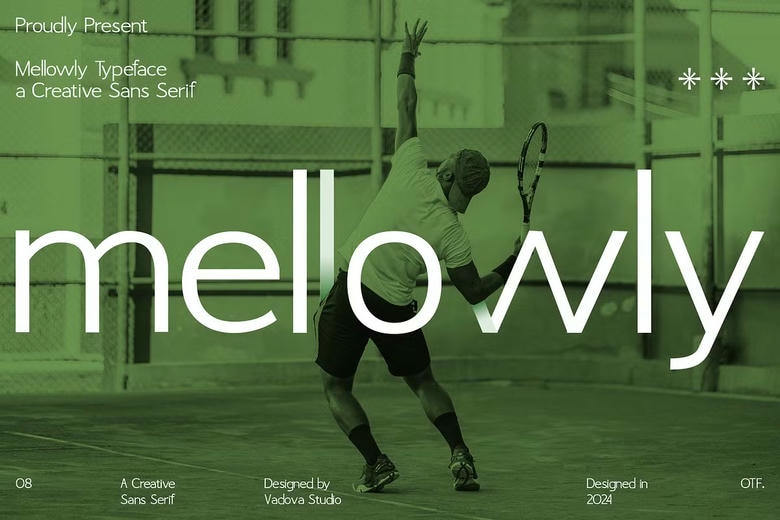
Mellowly Font
Mellowly is a clean and modern sans serif typeface that is made to be clear, flexible and creative. Mellowly strikes a balance in functionality and visual sophistication by its geometric structure and minimalistic approach of calmness in design. The font has uppercase and lowercase letters, numerals, punctuation, and multilingual characters, which makes it best appropriate to digital platforms, printing design and branding.
Mellowly rhythm and readable forms scale up and down whether you need to design a sports campaign, a tech product, a lifestyle magazine or a minimalist UI interface. It adds a silent assurance to all the logo design to editorial layouts and is screen and print optimized. The Mellow font is the preferred typeface of designers who aim at intelligent simplicity and imaginative influence.
Mellowly Sans Serif Font